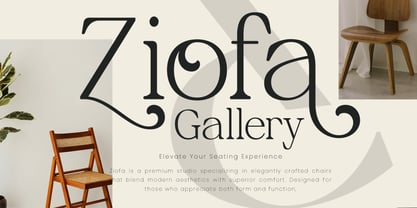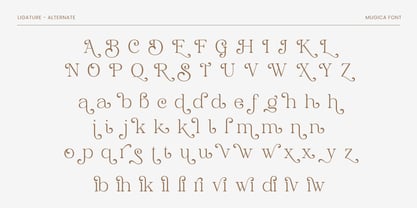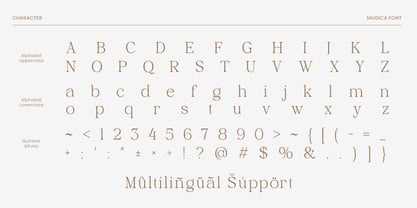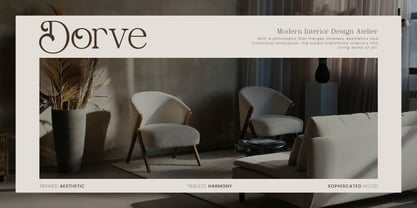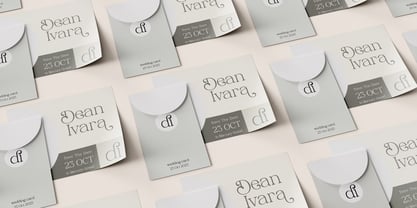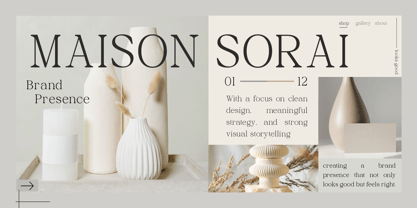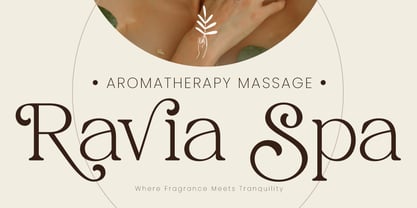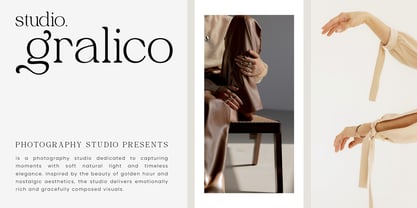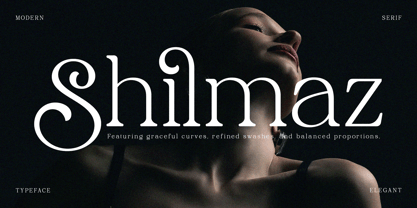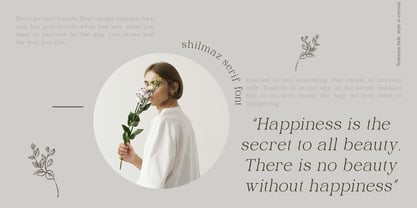
Shilmaz
by Jafar07
The Shilmaz Font Family was designed by Bakhrudin Ja'far and published by Jafar07. Shilmaz contains 2 styles and family package options. More about this family
Shilmaz a modern serif font that embodies elegance and timeless sophistication. With its graceful curves, refined swashes, and balanced proportions, Shilmaz is designed to bring a sense of luxury and class to any creative project. This font captures the harmony between modern minimalism and artistic detail, making it an essential choice for designers seeking refinement.
Crafted with precision Shilmaz features sharp serifs, stylish alternates, and smooth kerning for professional-quality typography. The unique letterforms add personality while keeping readability intact, making it versatile for both print and digital use. From bold headlines to delicate text, Shilmaz adapts beautifully to various design contexts.
Perfect for luxury logos, fashion branding, wedding invitations, editorial layouts, and social media designs, Shilmaz elevates your visual identity with elegance. Whether you’re working on high-end packaging, chic marketing assets, or timeless brand visuals, this font ensures your work leaves a lasting impression. Bring your designs to life with Shilmaz today.
Designers: Bakhrudin Ja'far
Foundry: Jafar07